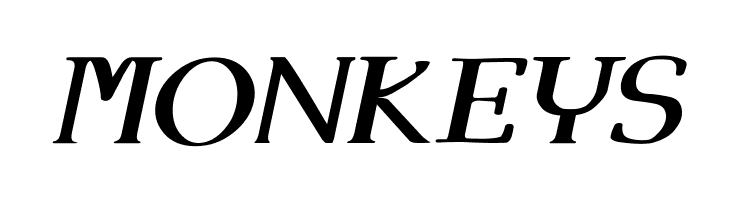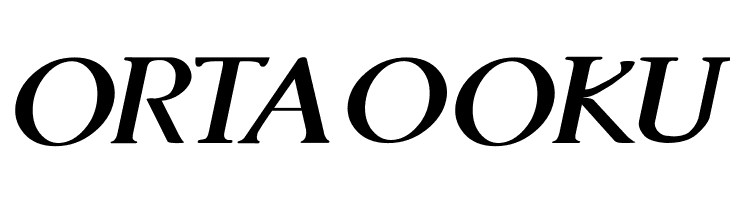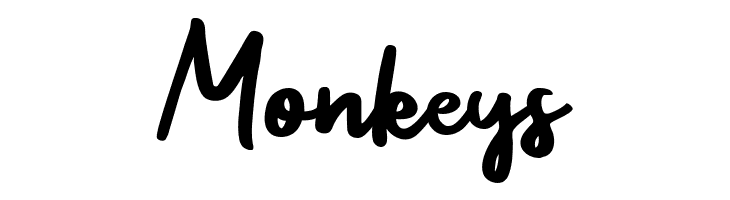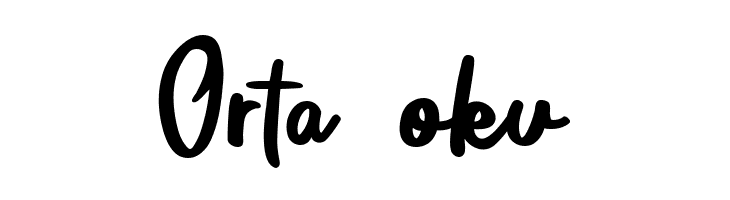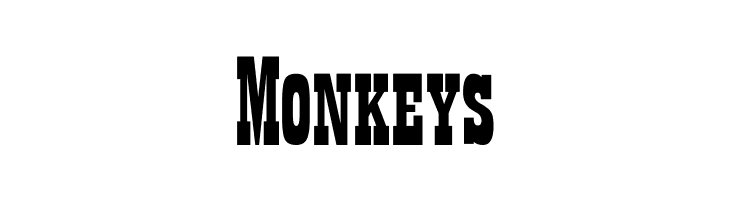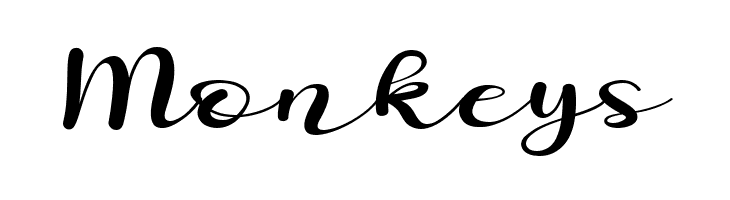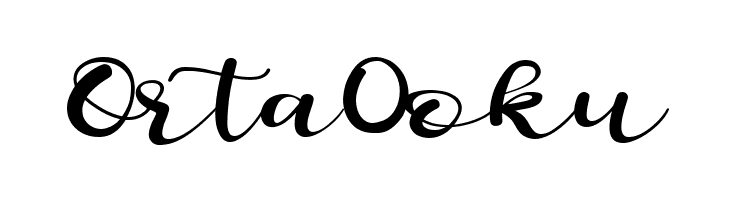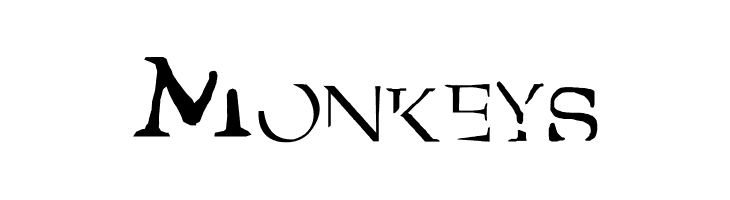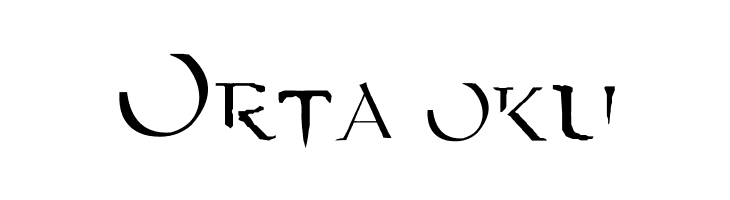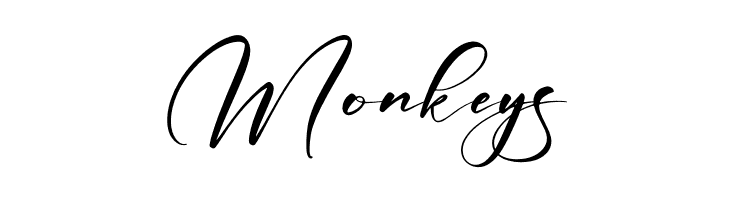
• Amstera
A sophisticated, cursive script font with high contrast and elegant flow.
• Amtera
A bold, handwritten script font with a lively and dynamic style.
• Anderson Signature Swash
Elegant swashes with smooth, flowing strokes for decorative use.
• Anderson Thunderbirds Are GO!
A bold, impactful slab serif font with a vintage yet modern appeal.
• Angel 1
A bold, angular font with unique cutouts and an artistic, edgy style.
• Angel Eyes Italic
A dynamic and elegant italic font with smooth, flowing letterforms.
• Angeles
A lively and elegant script font with smooth curves and flowing strokes.
• Angelic Serif
An elegant serif font with decorative swirls and flourishes.
• Angkor
A clean, modern font with balanced spacing and clear characters.
• Angkor Regular
The font is not displaying correctly, showing placeholders instead of characters.